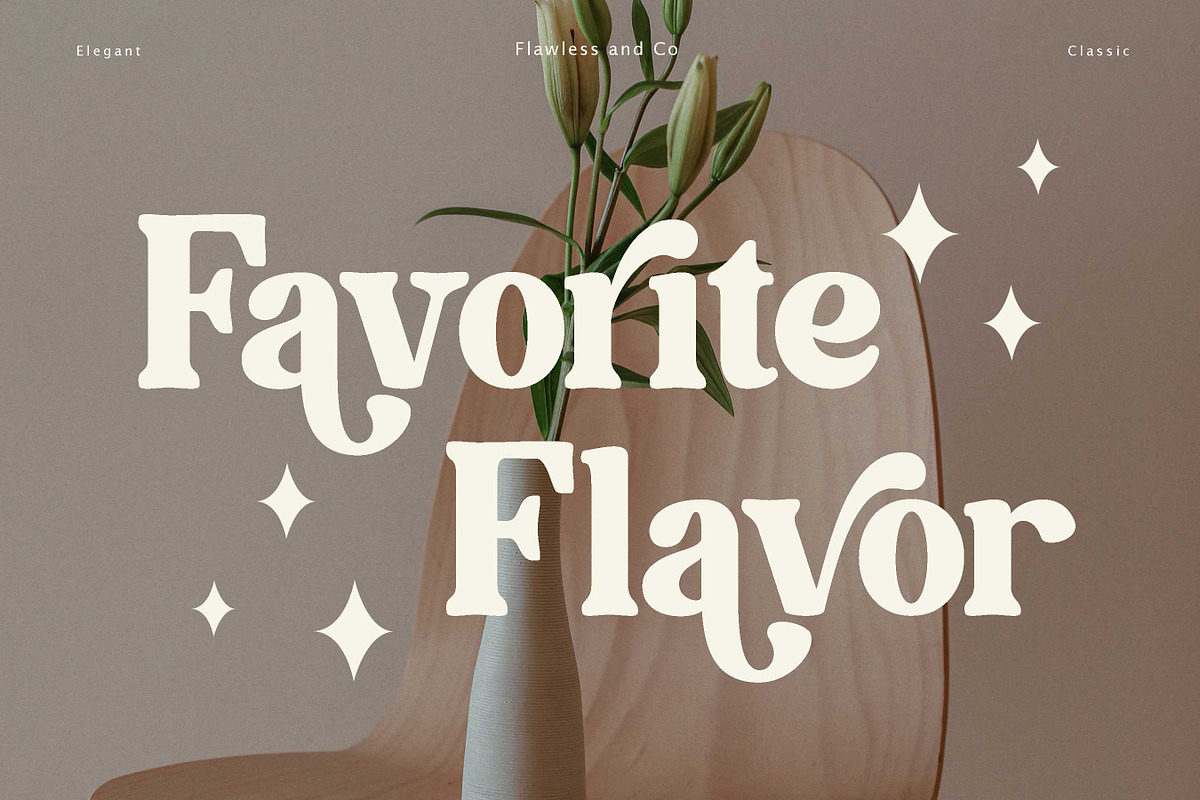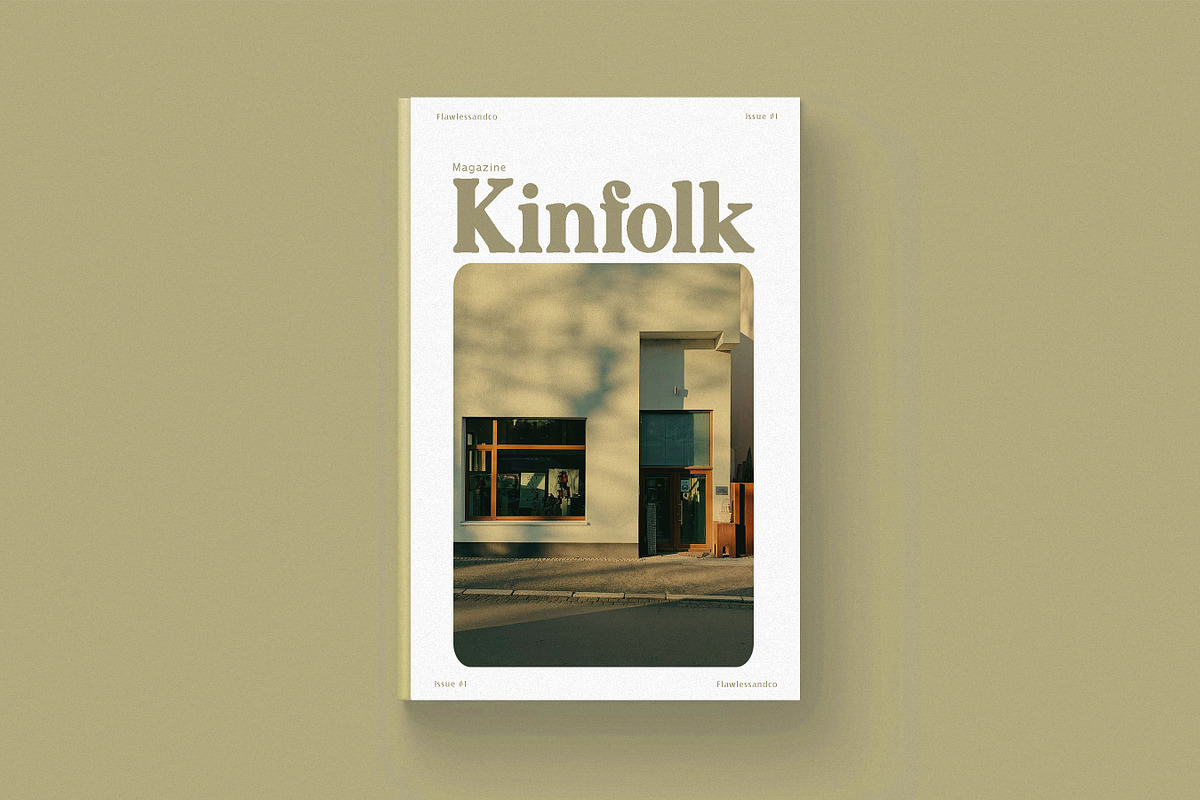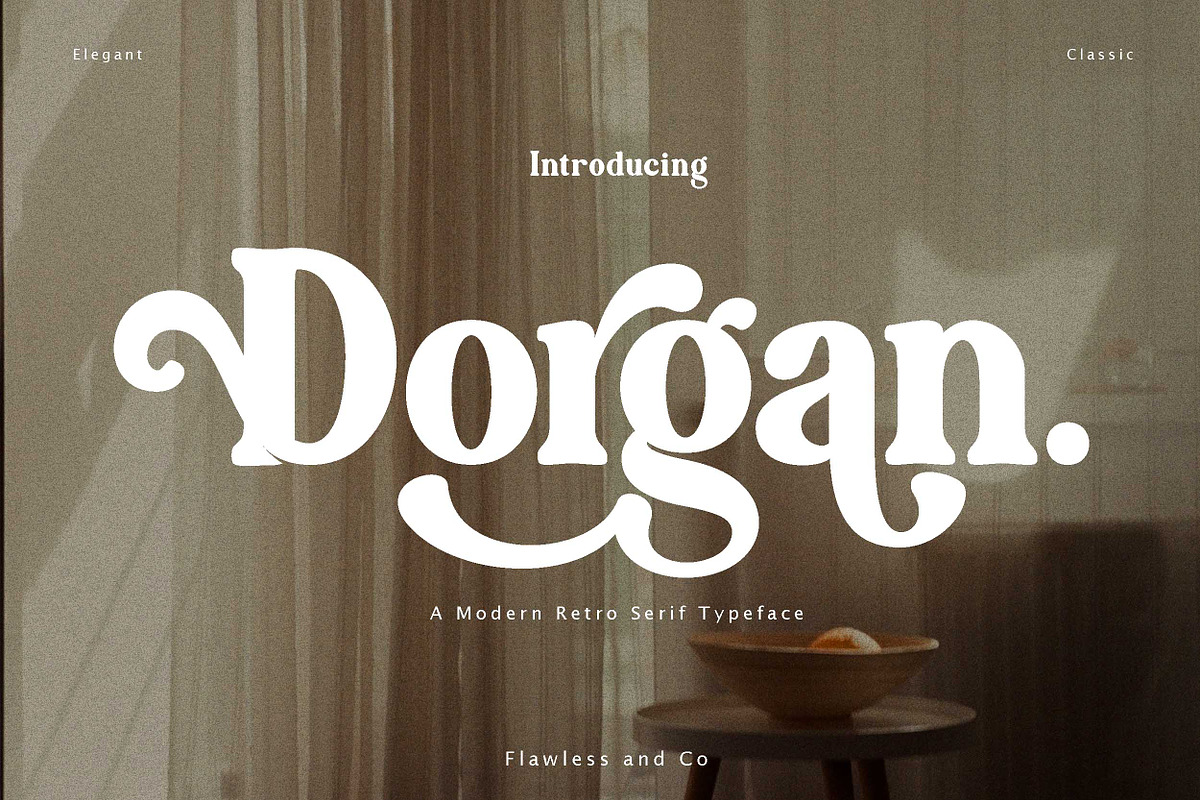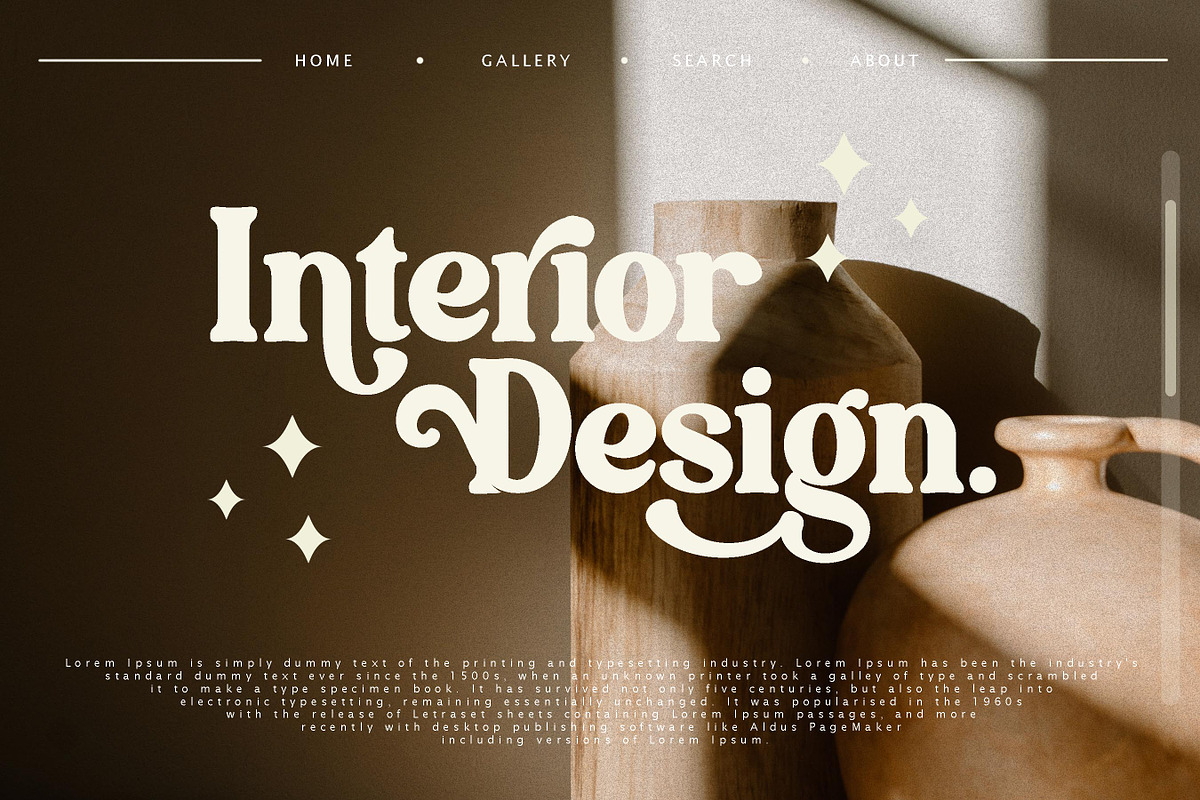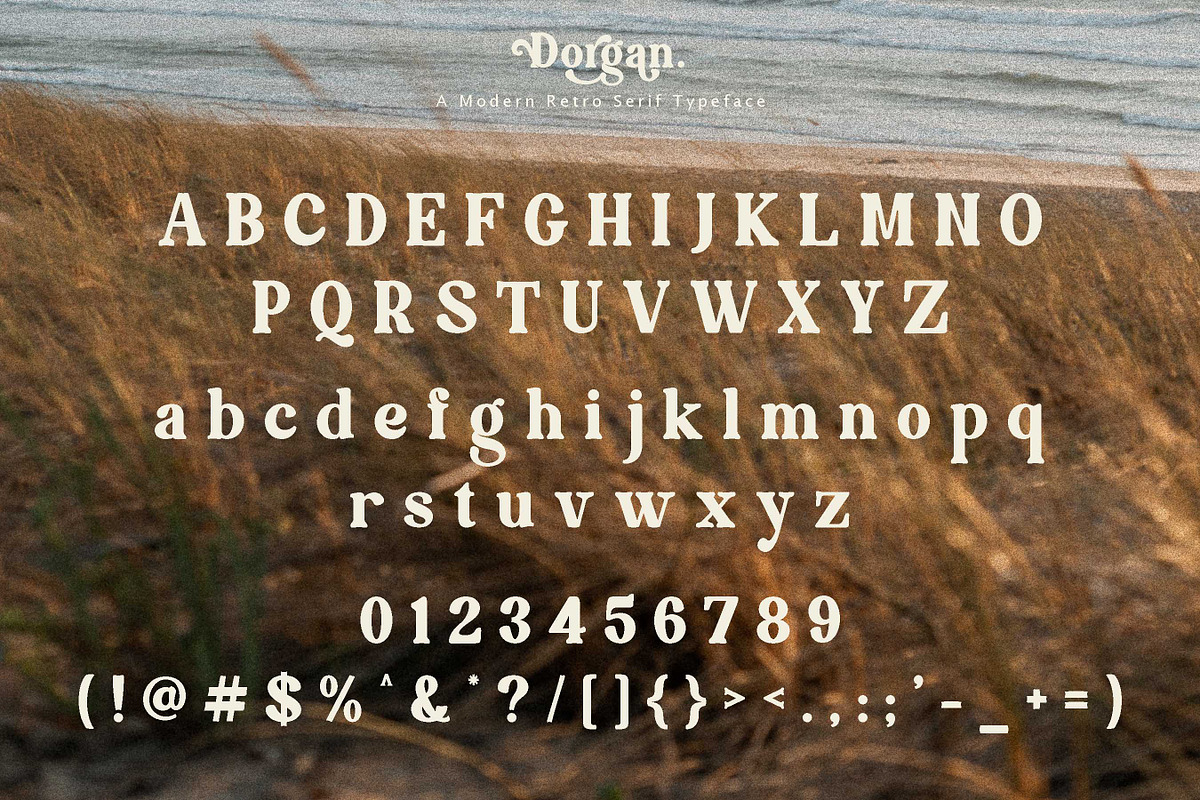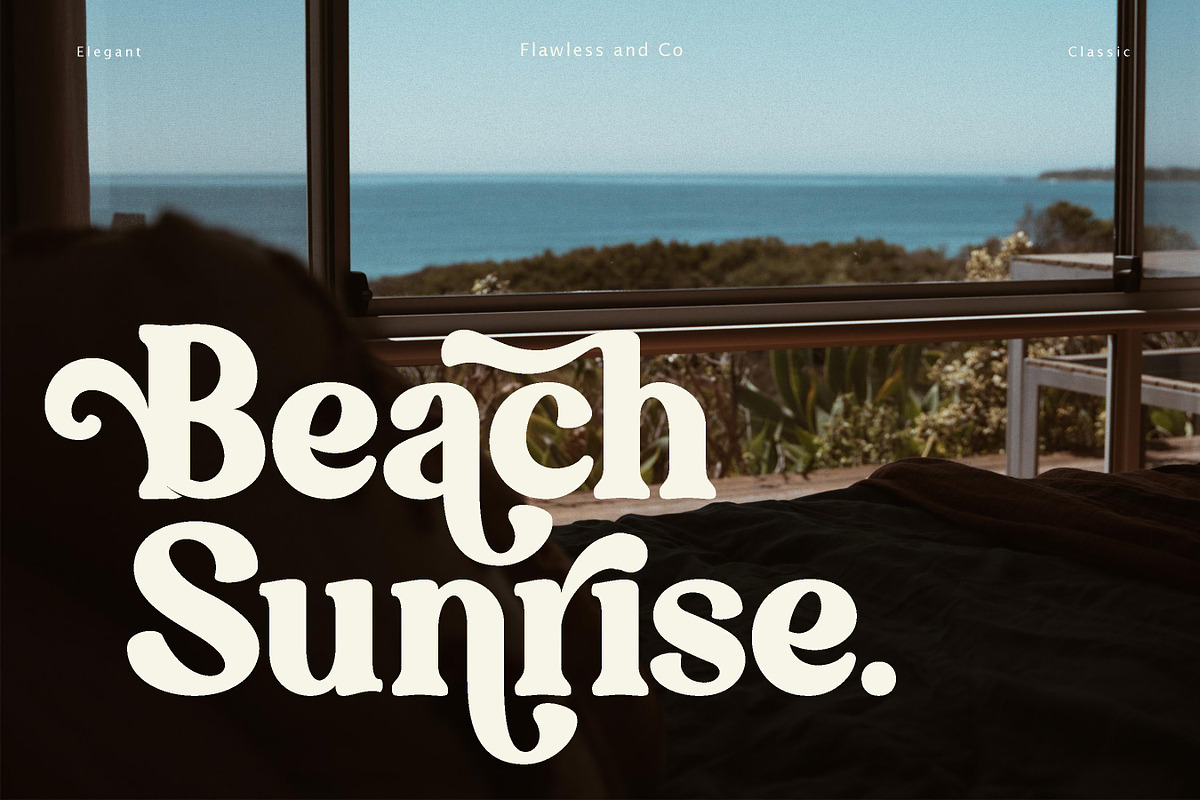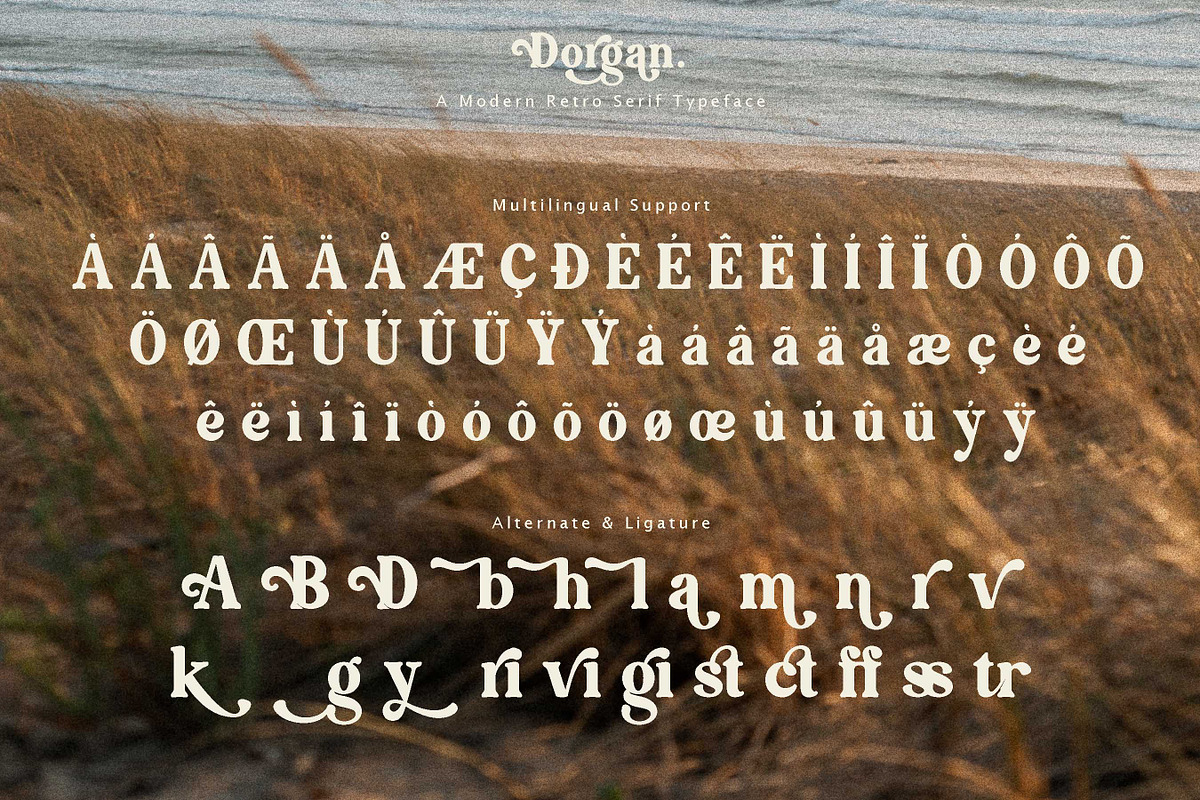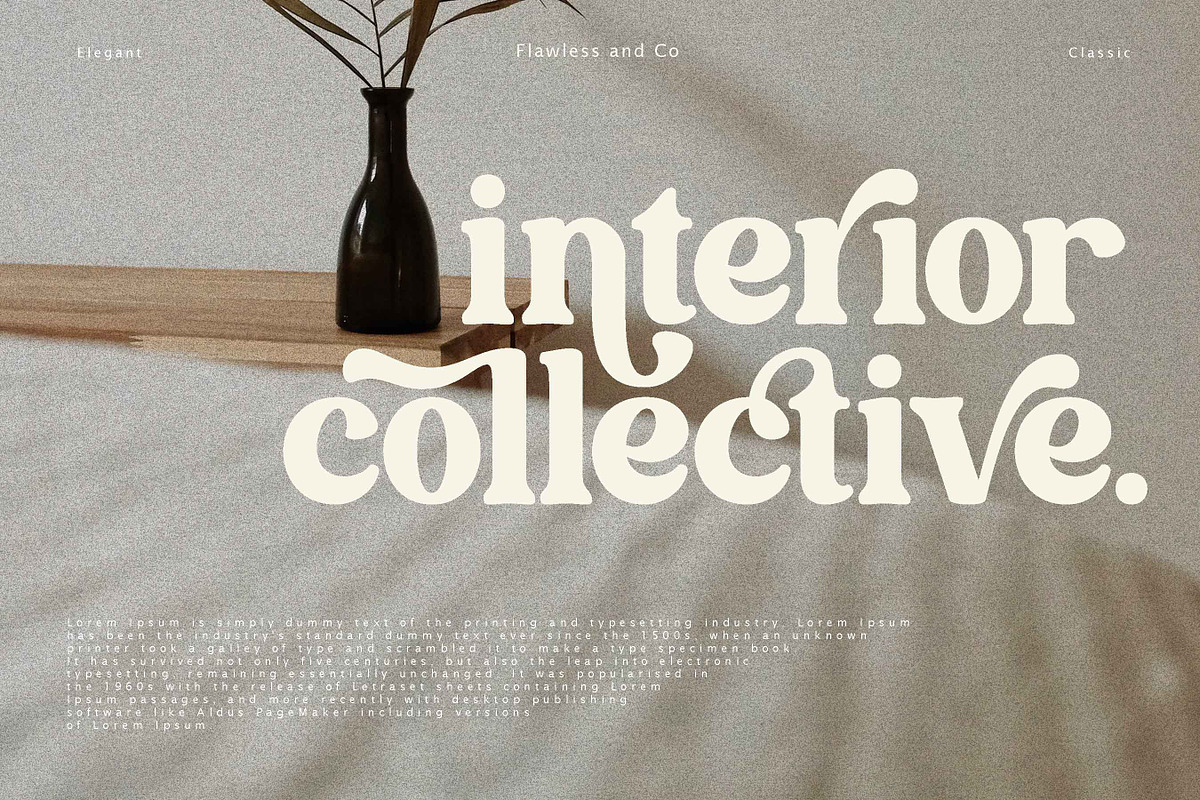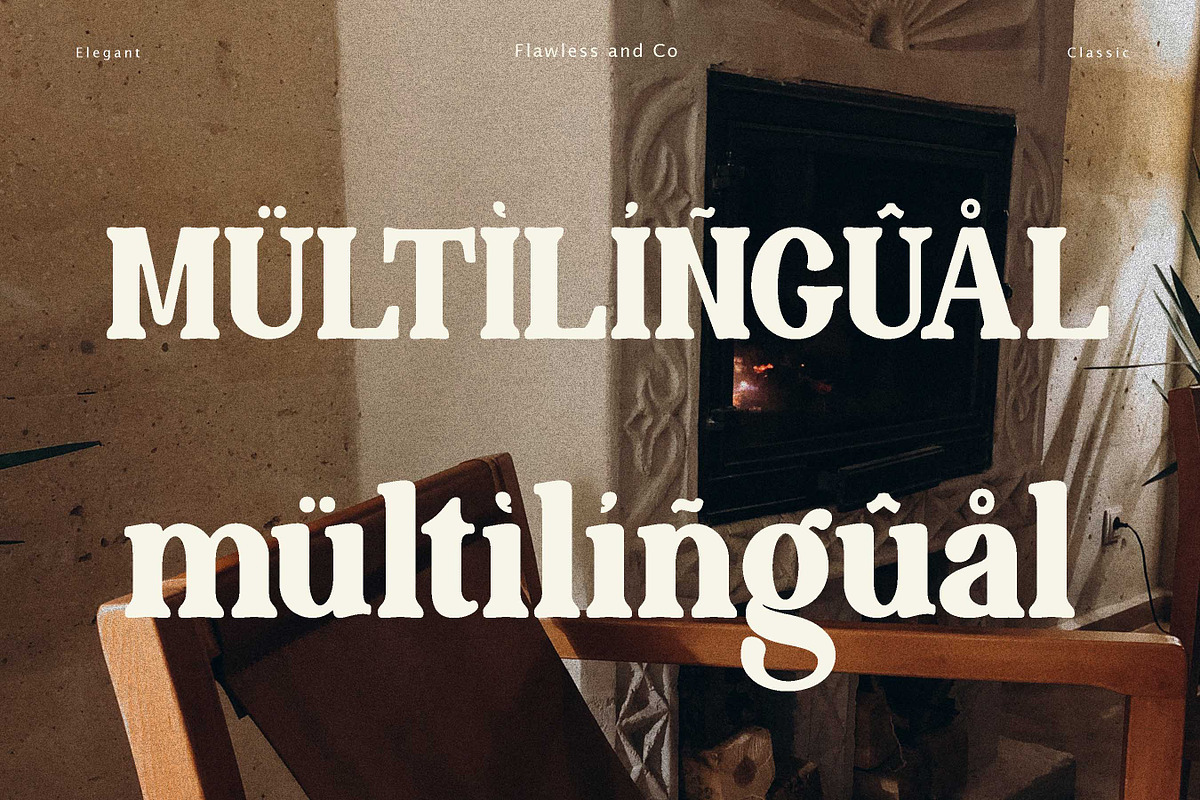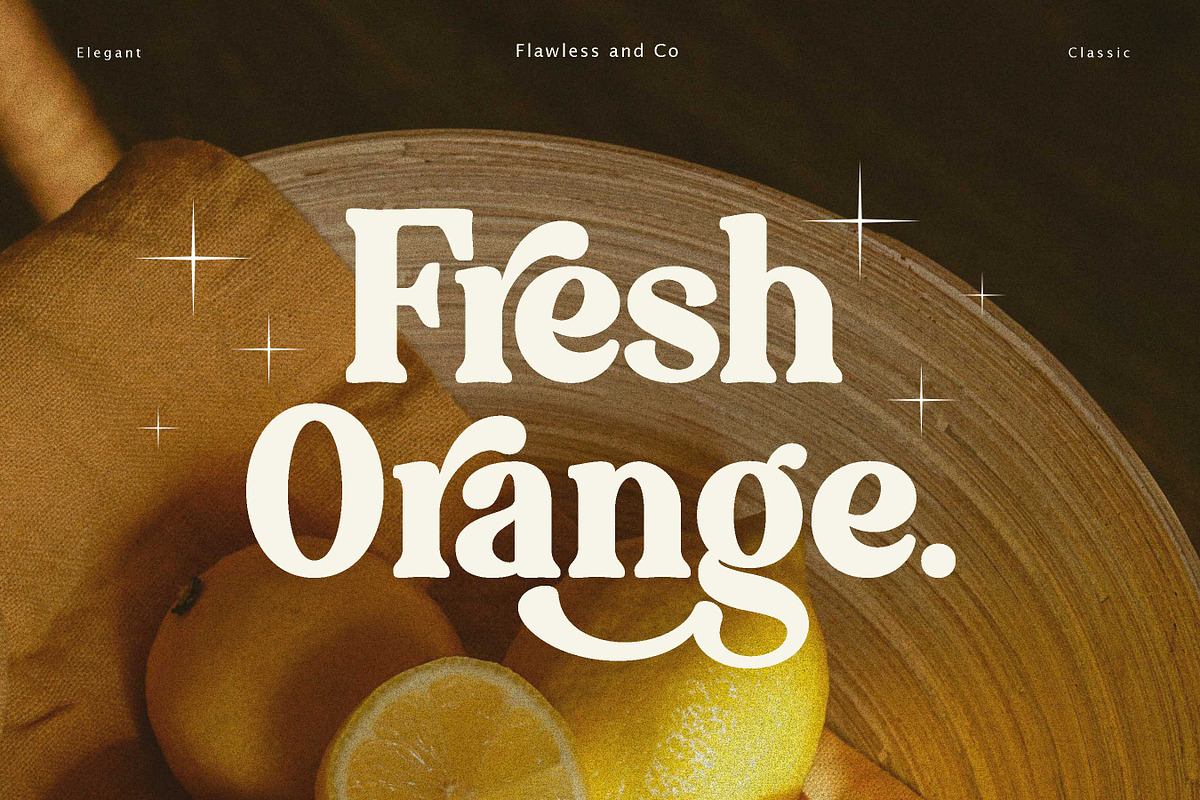
Dorgan
Dorgan - Modern Boho Retro Font
introducing our new "Dorgan" Modern Font with Elegant Style is perfect for branding, logos, invitation, master heads, and more.
Multilingual Uppercase alphabet A-Z Lowercase alphabet a-z Alternate Character Numbers 0-9 Some punctuation